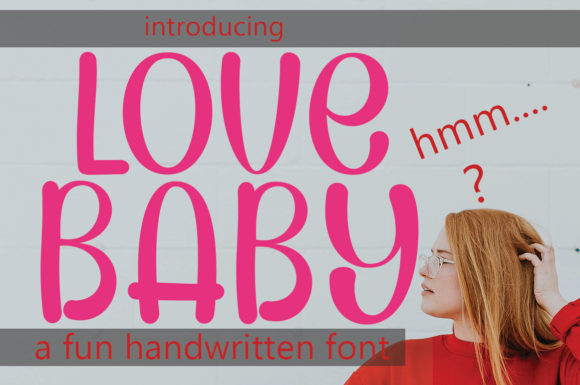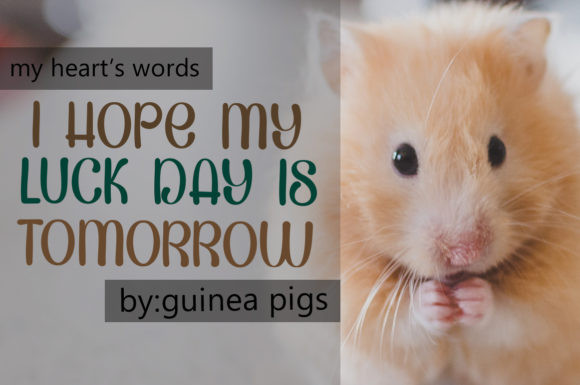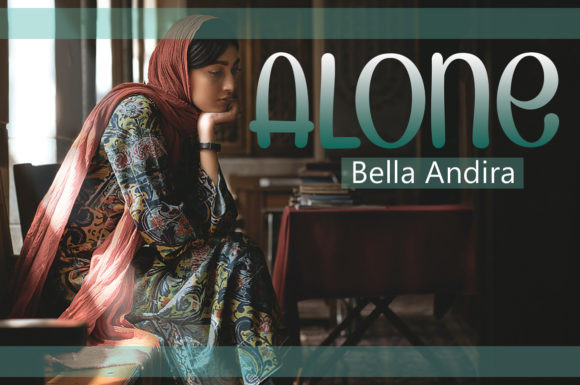
Lovebaby Font
Lovebaby is a cute and casual handwritten font with an incredibly friendly feel. Whether you’re looking for fonts for Instagram or calligraphy scripts for DIY projects, this font will turn any creative idea into a true piece of art!